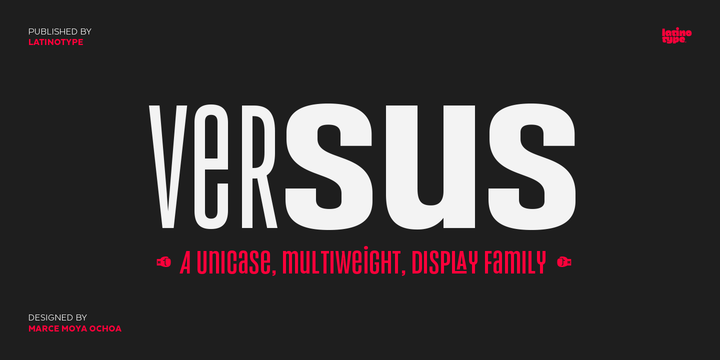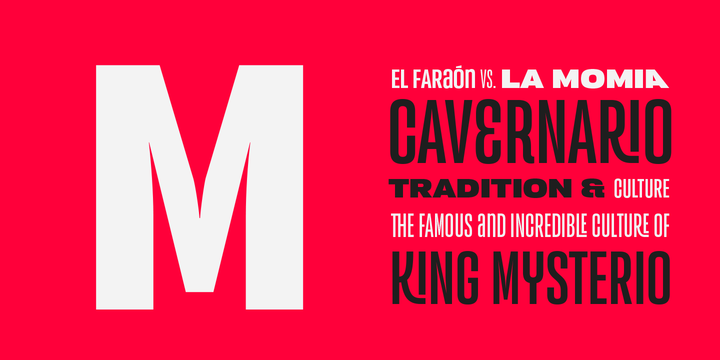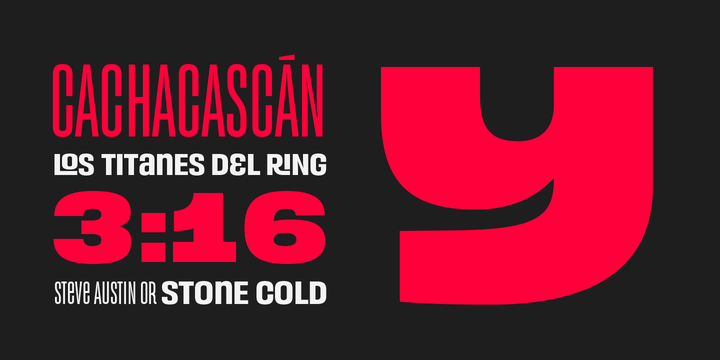
Versus Font Family
A unicase typeface inspired by Latin American wrestling.
Versus is a type system designed for use with short and block text. The font, based on well-known typefaces found on boxing posters, combines Latin American elements and wrestling; it is this mixture of widths and weights and different styles which helps give your designs a unique flavour and personality